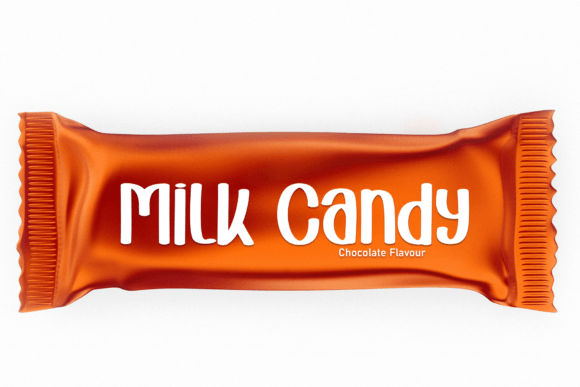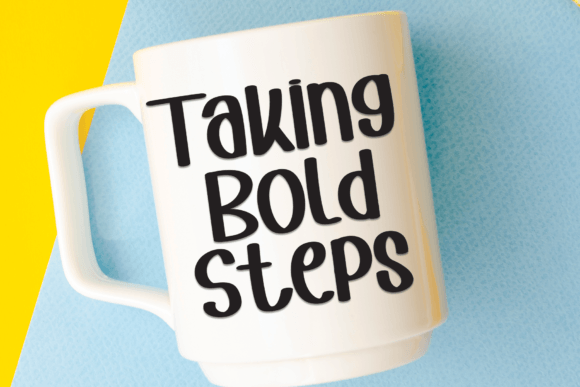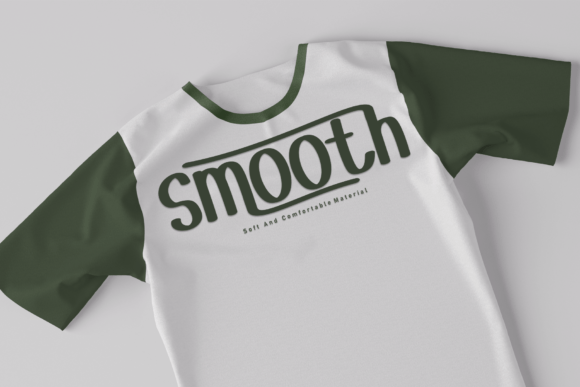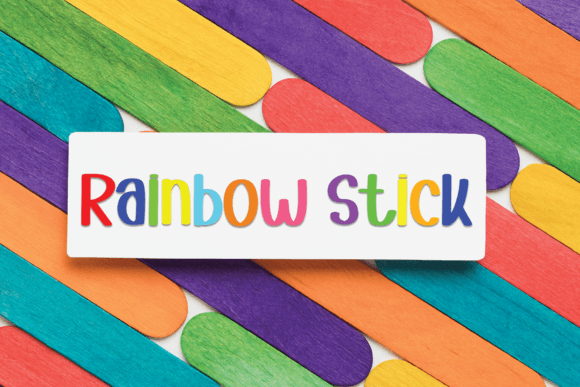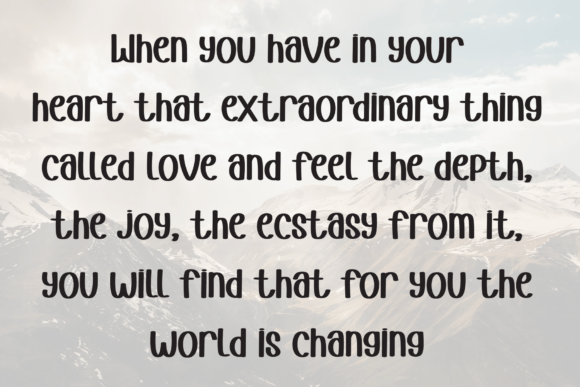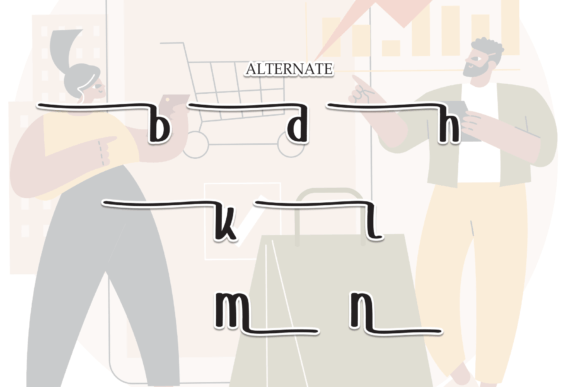
Introducing Demand Font: The Sweet and Friendly Handwritten Display Font
Are you looking for a font that can add a touch of sweetness and friendliness to your designs? Look no further than Demand Font, a beautiful handwritten display font that’s perfect for creating eye-catching wedding invitations, cards, and other designs that require a fun and playful touch.
What is Demand Font?
Demand Font, also known as Demans, is a carefully crafted handwritten font that’s designed to bring a sense of warmth and approachability to your designs. Its sweet and friendly appearance makes it an ideal choice for designers and crafters who want to create unique and personalized designs that stand out from the crowd.
Characteristics of Demand Font
So, what makes Demand Font so special? Here are some of its key characteristics:
- Cute and Fun: Demand Font is a playful font that’s designed to add a touch of whimsy to your designs. Its fun and carefree appearance makes it perfect for creating designs that require a lighthearted and humorous tone.
- Handwritten: Demand Font is a handwritten font that’s designed to mimic the look and feel of handwritten script. Its imperfections and irregularities give it a personal and authentic touch that’s hard to replicate with digital fonts.
- Display Font: Demand Font is a display font that’s designed to make a statement. Its bold and eye-catching appearance makes it perfect for creating headings, titles, and other design elements that require a strong visual impact.
Use Cases for Demand Font
So, what can you use Demand Font for? Here are some ideas to get you started:
- Wedding Invitations: Demand Font is perfect for creating beautiful and unique wedding invitations that reflect the couple’s personality and style.
- Cards: Whether you’re creating birthday cards, thank-you cards, or holiday cards, Demand Font is a great choice for adding a personal and playful touch.
- Designs: Demand Font can be used for a wide range of designs, from posters and flyers to social media graphics and blog headers.
Benefits of Using Demand Font
So, why should you choose Demand Font for your designs? Here are some benefits to consider:
- Unique and Personalized: Demand Font is a unique and personalized font that’s designed to help you stand out from the crowd.
- Easy to Read: Despite its playful appearance, Demand Font is easy to read and understand, making it perfect for creating designs that require a clear and concise message.
- Versatile: Demand Font is a versatile font that can be used for a wide range of designs and applications.
Tips for Using Demand Font
Here are some tips for using Demand Font effectively in your designs:
- Use it sparingly: Demand Font is a bold and eye-catching font, so use it sparingly to avoid overwhelming your design.
- Pair it with other fonts: Demand Font pairs well with other fonts, so experiment with different combinations to find the perfect look for your design.
- Experiment with colors: Demand Font looks great in a variety of colors, so don’t be afraid to experiment and find the perfect color scheme for your design.
In conclusion, Demand Font is a sweet and friendly handwritten display font that’s perfect for adding a touch of whimsy and playfulness to your designs. Its unique and personalized appearance makes it an ideal choice for designers and crafters who want to create eye-catching wedding invitations, cards, and other designs that require a fun and lighthearted touch.
Whether you’re a seasoned designer or a crafty DIY enthusiast, Demand Font is a great choice for anyone looking to add a little personality and flair to their designs. So why not give it a try and see the difference it can make?